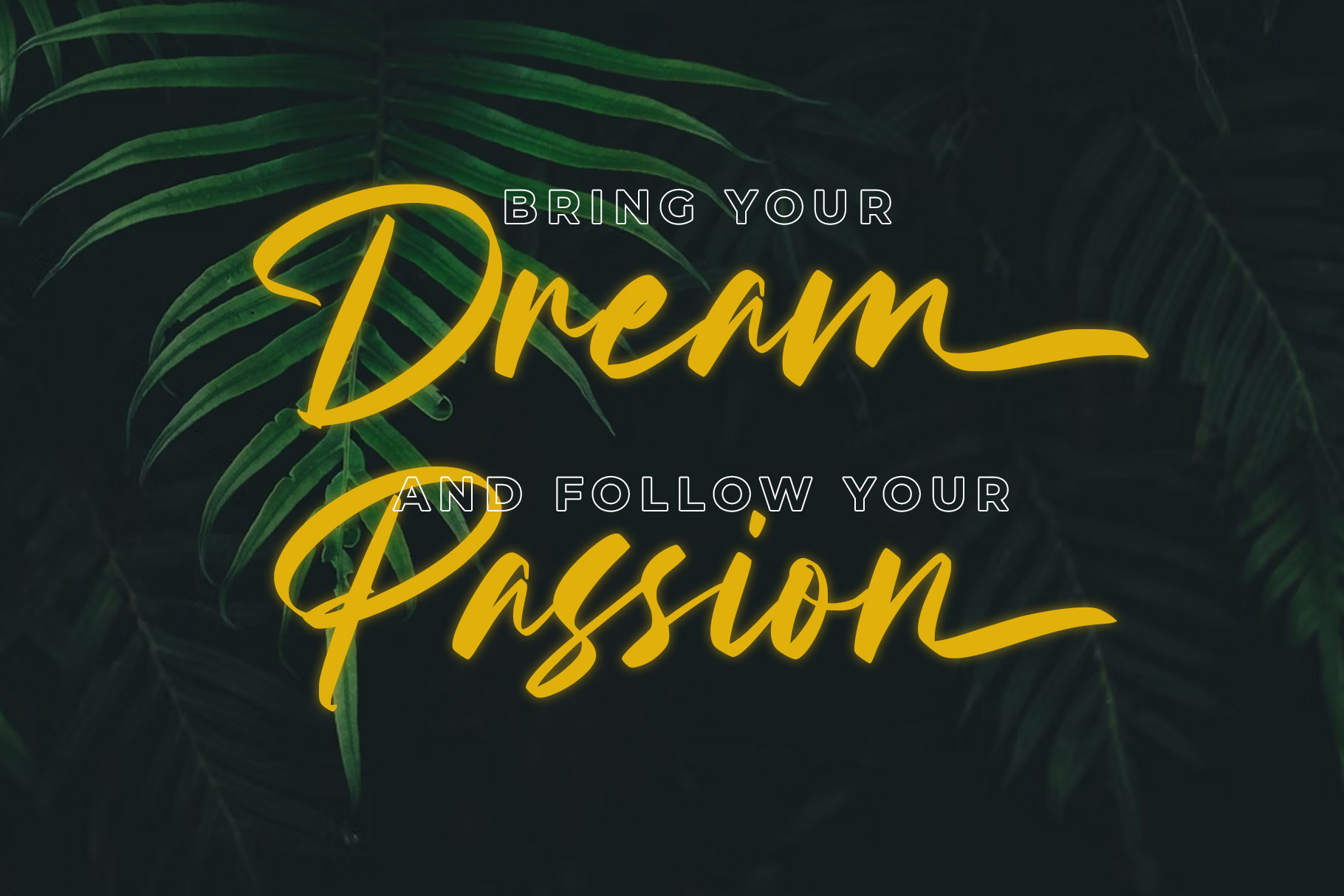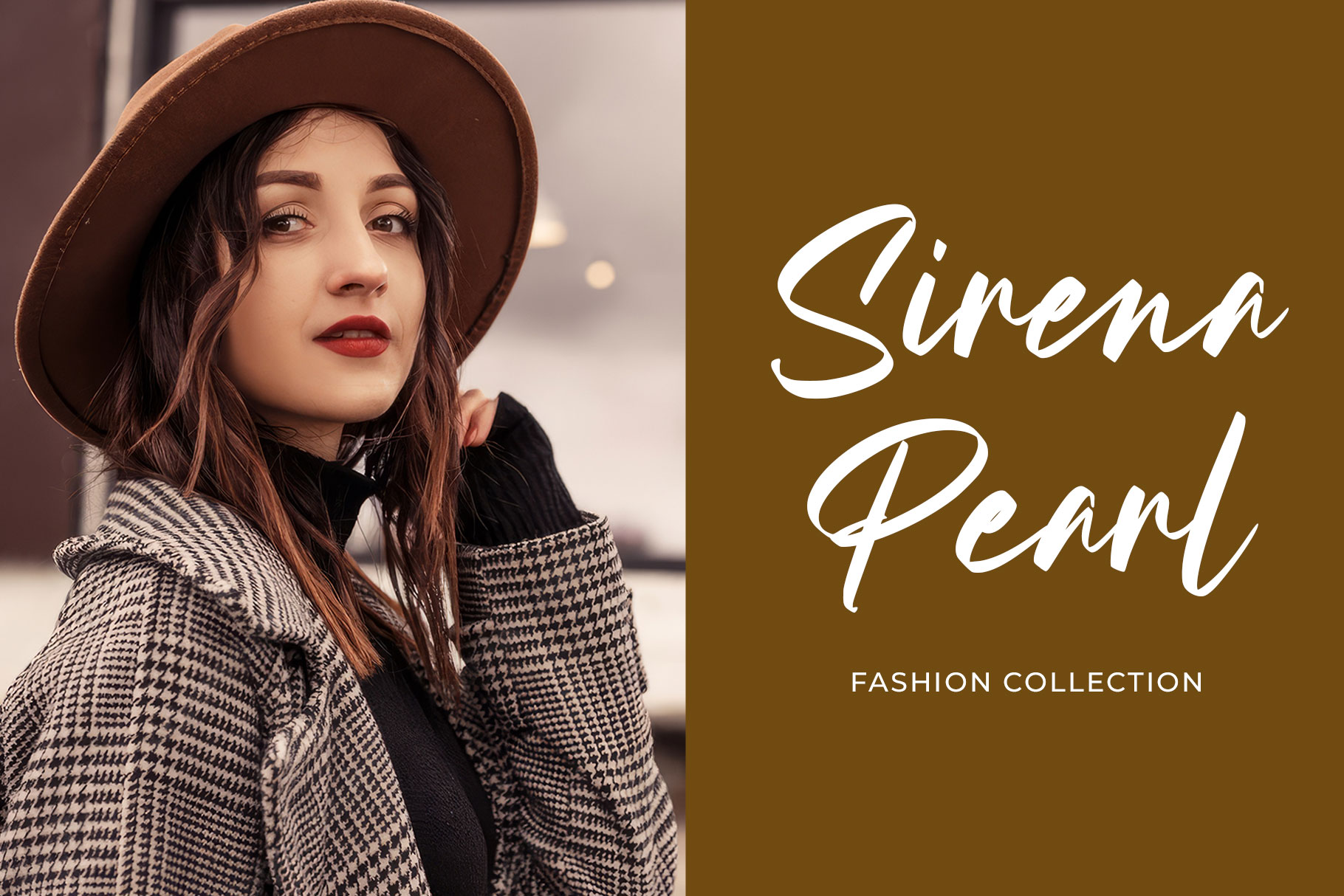
Casanty Signature Brush Font
Casanty is signature brush font with elegant scratch. We keep this font modern look, stylish, siganture and easy to use. Casanty is a perfectly choice for any creative endeavor, modern, chic, lifestyle design such as logotype, title, cover, branding, invitations, wedding designs, display and magazine, social media posts, advertisements, printed quotes, product packaging, corporate brand, product designs, labels, photography, watermarks, special events and any other project with handwritten touch.